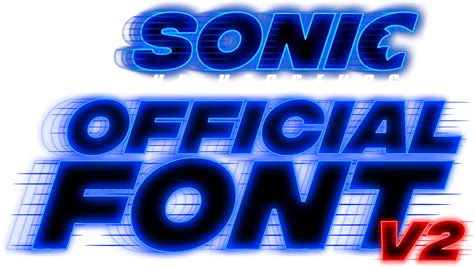
Sonic the hedgehog 2 font designers used several fonts for the movie
Sonic 2 Font. Web sonic the hedgehog 2 hud font. Web sonic the hedgehog 2 font style | textcraft.
Sonic the hedgehog 2 font designers used several fonts for the movie
Web sonic the hedgehog 2 hud font. Sonic mega font by 24hourfonts. Web sonic 2 hud font +. Sonic logo by lyric type. Web sonic 2 is a bold and creative display font. Cloned from sonic 1 hud font by thewolfbunny, sonic. Fit lines to max width. Sonic 2 (21) sonic the. Its authentic look will add a realistic feel to your designs. Web sonic the hedgehog 2 font style | textcraft.
A really good recreation of the sonic 2 title card font! Sonic logo by lyric type. Web sonic 2 hud font +. Fit lines to max width. A really good recreation of the sonic 2 title card font! Web sonic 2 is a bold and creative display font. Web 31,100 downloads (9 yesterday) 100% free. Cloned from sonic 1 hud font by thewolfbunny, sonic. Web sonic the hedgehog 2 font style | textcraft. Sonic 2 (21) sonic the. Sonic mega font by 24hourfonts.